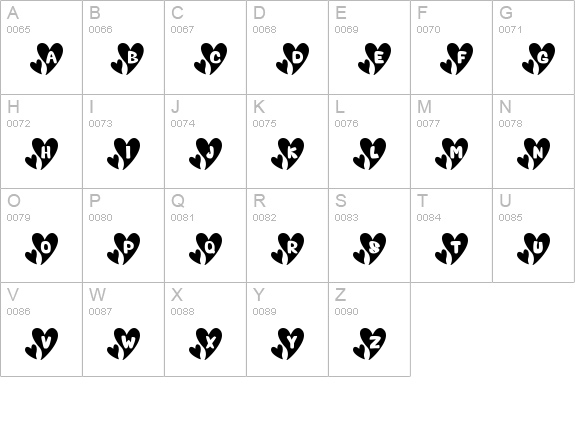
Valentine Caps Font Details
Introducing Valentine Caps, a delightful and charming font that captures the essence of love and romance. With its elegant and intricate letterforms, this font is perfect for adding a touch of whimsy and sophistication to any project. Valentine Caps is the ideal choice for Valentine's Day cards, wedding invitations, love letters, and any other design that needs a touch of romance. Its unique and intricate design will make your text stand out and leave a lasting impression on your audience. And the best part? Valentine Caps is absolutely free! That's right, you can download this beautiful font for free at FontsMarket.com. With just a few clicks, you can have this stunning font ready to use in your next project. So why wait? Spread the love and make your designs truly special with Valentine Caps. Download it now and let your creativity soar!